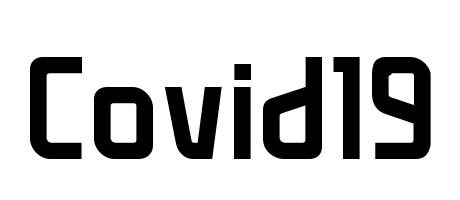
Covid19
Covid19: A bold, sans-serif typeface, exuding a stark, almost clinical feel. Its geometric forms reflect the virus''s precise, unforgiving nature. The weighty, blocky numerals emphasize the pandemic''s significant impact. Simple yet impactful, it conveys seriousness and immediacy.